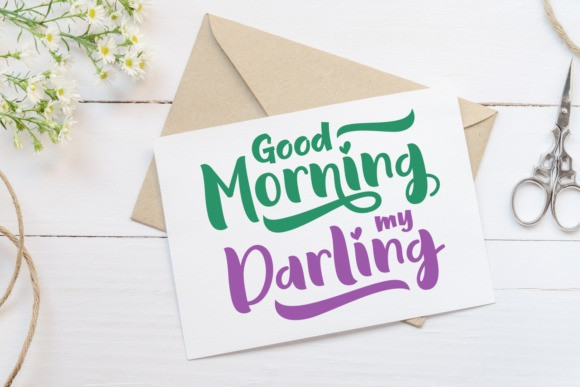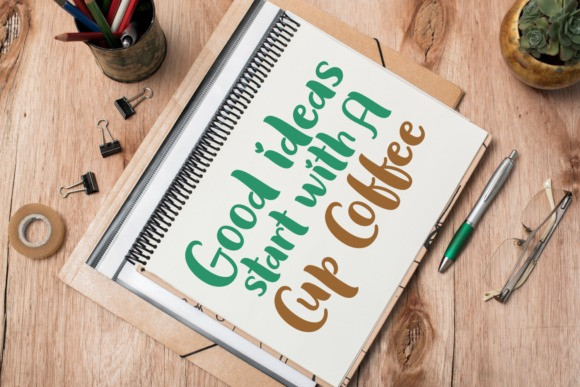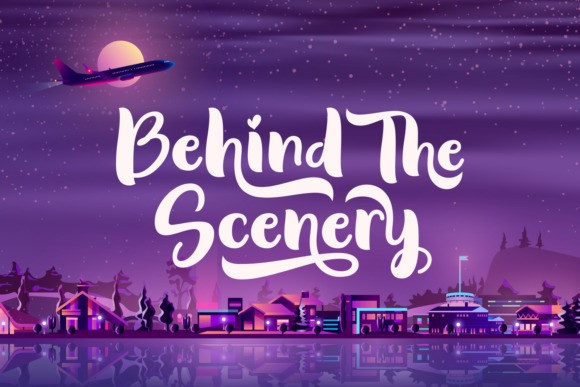
Almost There Calligraphy Font
Almost There is a fresh and cute handwritten font. It is perfect for greeting cards, branding materials, business cards, quotes, posters, and much more!
This font is PUA encoded which means you can access all of the cute glyphs and swashes with ease! It also features a wealth of special features including alternate glyphs and ligatures.